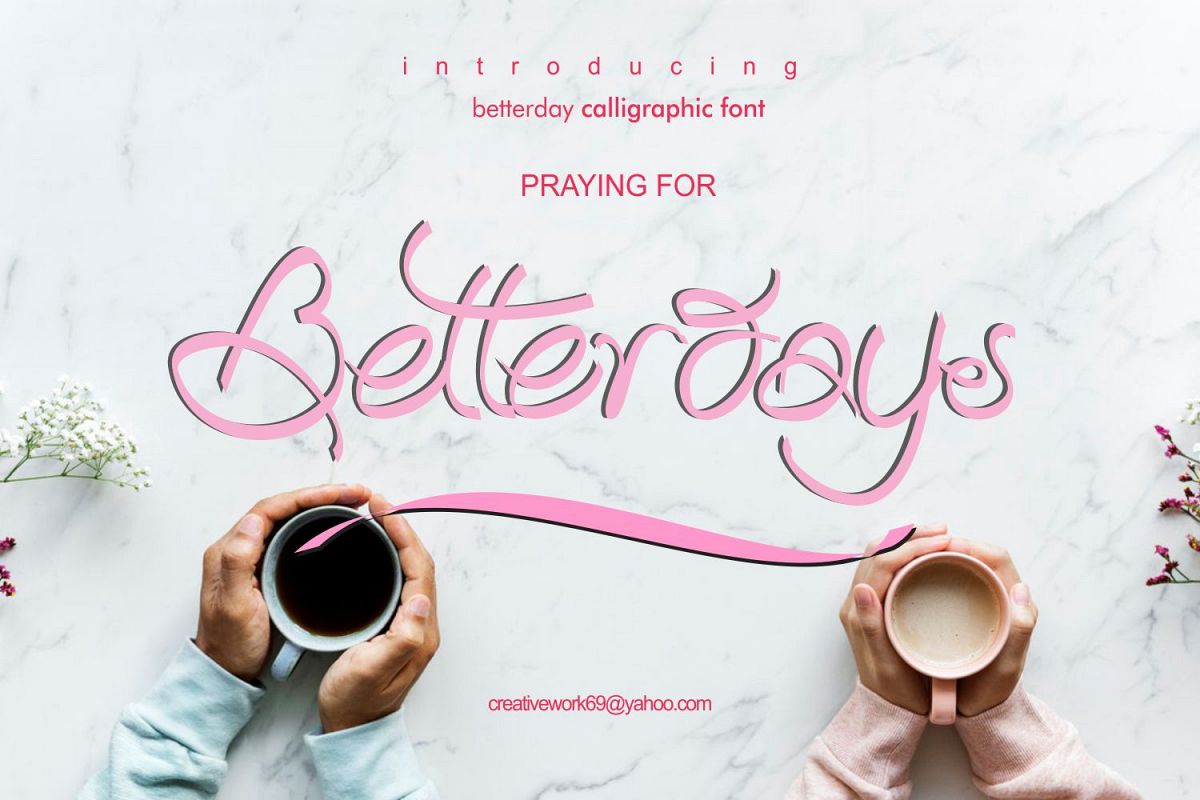
Betterday Calligraphic
Betterday Calligraphic is an artistic hand writing font. It is suitable for product name, logos, greeting card, branding, blog title and everything need personal touch.
it comes with all lowercase, uppercase, numeral, international character,
completed with ligature, make your brand more unique.